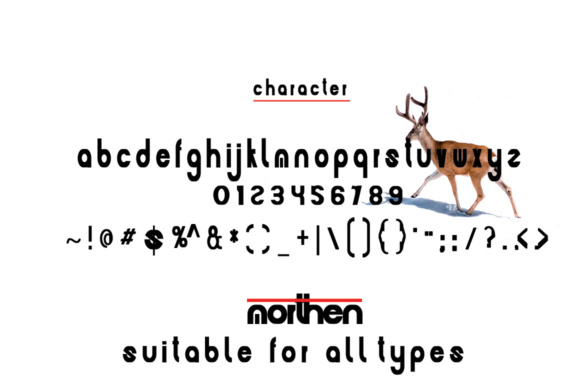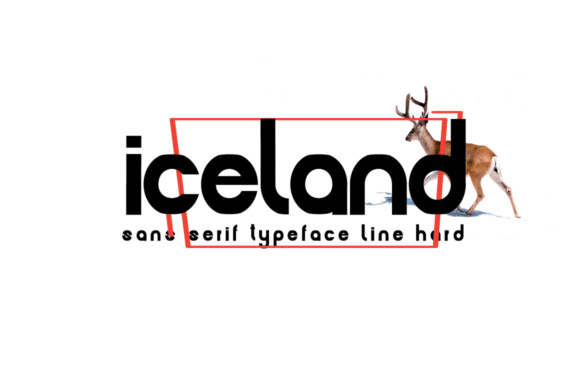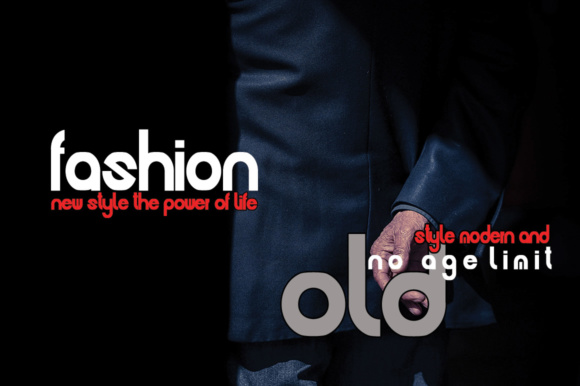
Introduction to Morthen Font
Have you ever been stuck on a creative project, staring at a blank screen, desperately searching for the perfect font to bring your design to life? That’s exactly where I was when I stumbled upon the Morthen Font. This rounded hardline sans serif font is more than just a pretty face – it’s a game-changer for designers.
With its clean lines and subtle curves, Morthen Font is a versatile design resource that can elevate any project. Whether you’re working on a branding campaign, creating a social media graphic, or designing a website, this font is sure to impress. Plus, with its transparent background, you can easily layer it with other design elements to create a high-quality visual experience.
Key Features of Morthen Font
- High-quality design resource suitable for various creative projects, including digital art and graphic design.
- Unique, modern design style that can add a touch of elegance to any creative project.
Honest Review: Morthen Font
As a designer, I’m always on the lookout for high-quality design resources to enhance my creative projects. Recently, I stumbled upon the Morthen Font, and I must say, it’s been a pleasant surprise.
Here are some of the key features that I appreciate about Morthen Font:
- High-quality design that’s perfect for modern projects
- Modern and sleek aesthetic
- Limited character set, which may not be suitable for projects that require a wide range of characters
- No bold or italic versions available, which can be a limitation for certain design projects
The Morthen Font is suitable for a variety of creative projects, including logos, business cards, and infographics.
Alternatives to Morthen Font